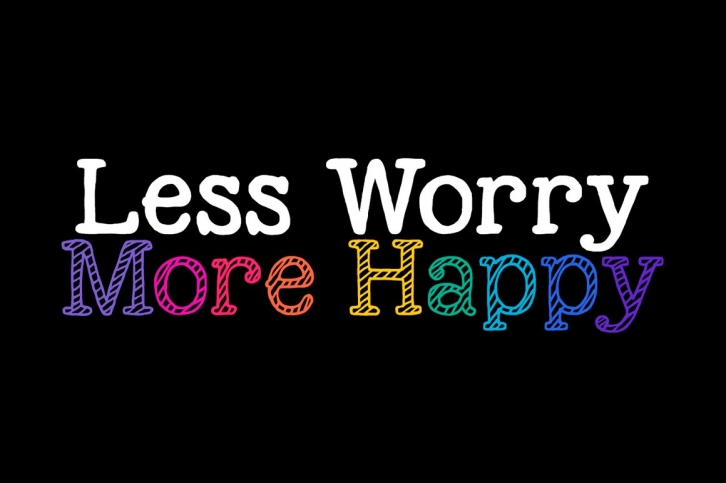
A typewriter inspired sketchy duo of fonts. These fonts come in TTF and contain enough glyphs to cover approximately 80 languages. This contains one stripey and one solid font.